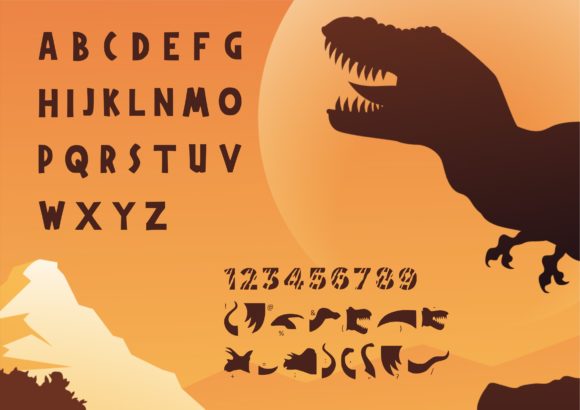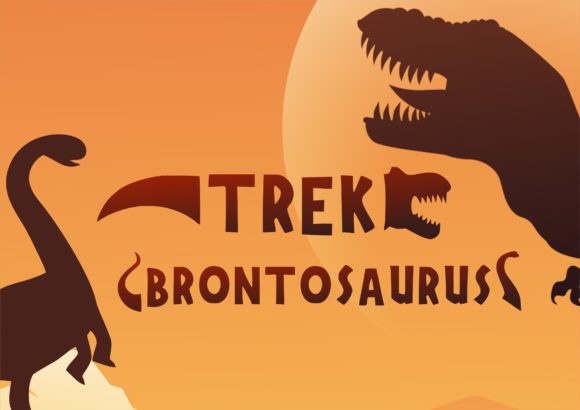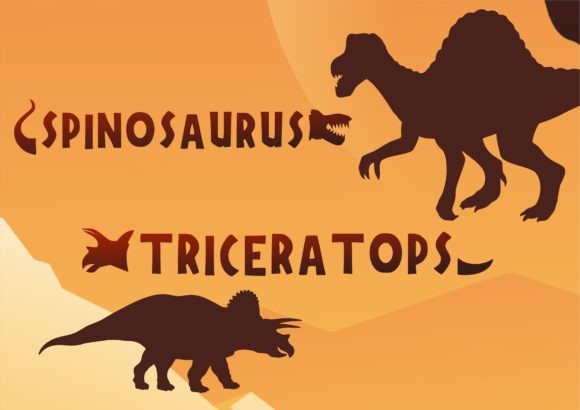
Dino Nodi Font: Unleash Your Creativity in the Dinosaur Age
Are you a designer, crafter, or DIY enthusiast looking for a unique and exciting font to add to your creative projects? Look no further than the Dino Nodi Font! This display font is perfect for a variety of crafts, t-shirt designs, posters, digital designs, presentations, dinosaur-themed book covers, and more. With its bold and playful style, Dino Nodi is sure to bring your ideas to life in the dinosaur age!
What is Dino Nodi Font?
Dino Nodi Font is a specially designed display font that features a fun and quirky dinosaur-inspired style. The font is characterized by its bold and chunky letters, adorable dinosaur-themed nodes, and a playful overall aesthetic. Whether you’re looking to create a statement piece or add a touch of whimsy to your designs, Dino Nodi Font is the perfect choice.
Features of Dino Nodi Font
- Unique and playful design: Dino Nodi Font features a one-of-a-kind design that’s sure to stand out in any project.
- Dinosaur-themed nodes: The font’s nodes are designed to resemble adorable dinosaurs, adding a fun and quirky touch to your designs.
- Bold and chunky letters: The font’s bold and chunky letters make it perfect for display purposes, such as headings and titles.
- High-quality and versatile: Dino Nodi Font is designed to be versatile and can be used in a variety of projects, from crafts and DIY designs to digital designs and presentations.
Uses of Dino Nodi Font
Dino Nodi Font is perfect for a wide range of creative projects, including:
- T-shirt designs: Add a fun and quirky touch to your t-shirt designs with Dino Nodi Font.
- Posters and flyers: Create eye-catching posters and flyers with Dino Nodi Font’s bold and playful style.
- Digital designs: Use Dino Nodi Font to add a touch of whimsy to your digital designs, such as social media graphics and blog posts.
- Presentations: Add a professional and creative touch to your presentations with Dino Nodi Font.
- Dinosaur-themed book covers: Create eye-catching book covers with Dino Nodi Font’s dinosaur-themed nodes and bold letters.
- Crafts and DIY projects: Use Dino Nodi Font to add a personal touch to your crafts and DIY projects, such as handmade cards and gift tags.
Why Choose Dino Nodi Font?
There are many reasons why designers and crafters choose Dino Nodi Font for their creative projects. Here are just a few:
- Unique and creative: Dino Nodi Font offers a unique and creative way to add a touch of personality to your designs.
- Easily readable: Despite its bold and chunky style, Dino Nodi Font is easily readable, making it perfect for display purposes.
- High-quality: Dino Nodi Font is designed to be high-quality and versatile, making it perfect for a wide range of creative projects.
- Fun and playful: Dino Nodi Font is sure to bring a smile to your face with its fun and playful dinosaur-themed nodes.
Tips for Using Dino Nodi Font
Here are a few tips for getting the most out of Dino Nodi Font:
- Experiment with different colors: Dino Nodi Font looks great in a variety of colors, so don’t be afraid to experiment and find the perfect hue for your project.
- Use it for display purposes: Dino Nodi Font is perfect for display purposes, such as headings and titles.
- Pair it with other fonts: Try pairing Dino Nodi Font with other fonts to create a unique and interesting contrast.
- Have fun: Most importantly, have fun with Dino Nodi Font! Its playful and quirky style is sure to bring a smile to your face.
In conclusion, Dino Nodi Font is a unique and exciting display font that’s perfect for designers, crafters, and DIY enthusiasts. With its bold and playful style, dinosaur-themed nodes, and high-quality design, Dino Nodi Font is sure to bring your creative projects to life in the dinosaur age! So why wait? Download Dino Nodi Font today and start adding a touch of whimsy to your designs!